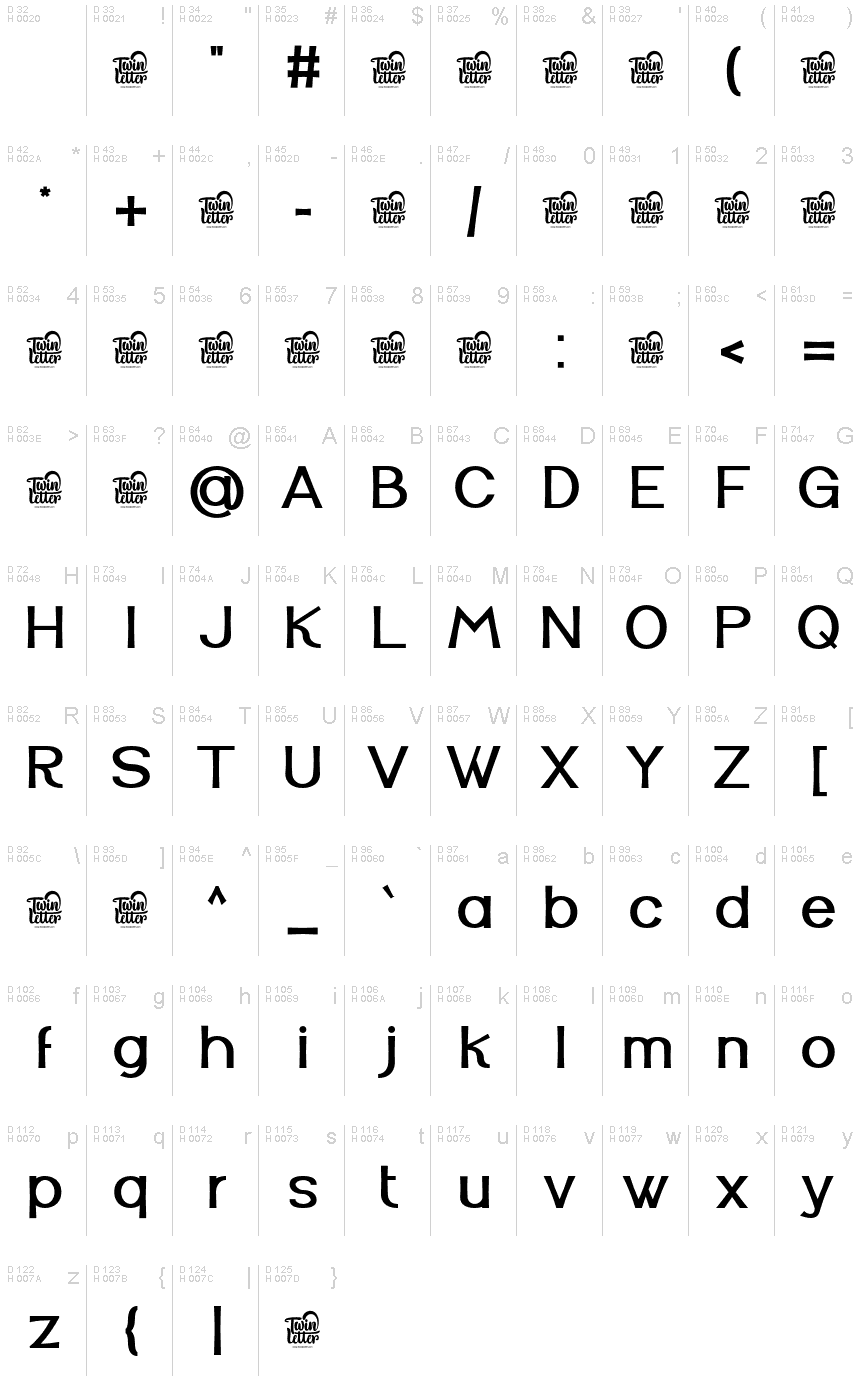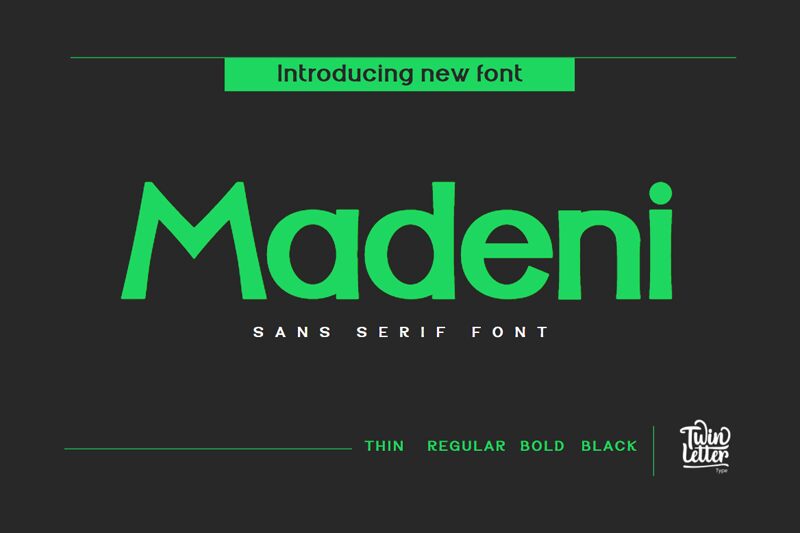
Madeni-Bold
Madeni Bold is a striking sans serif font from the renowned font designer twinletter. With its bold and impactful appearance, Madeni Bold is perfect for projects that demand attention and make a statement. From eye-catching headlines to impactful branding and marketing materials, this font will bring your message to life. Its clean lines and modern look make it ideal for websites, logos, packaging designs, and more. This semi-bold typeface is versatile enough to use in both print and digital mediums with ease. Add Madeni Bold to your design arsenal today and see the difference it can make!